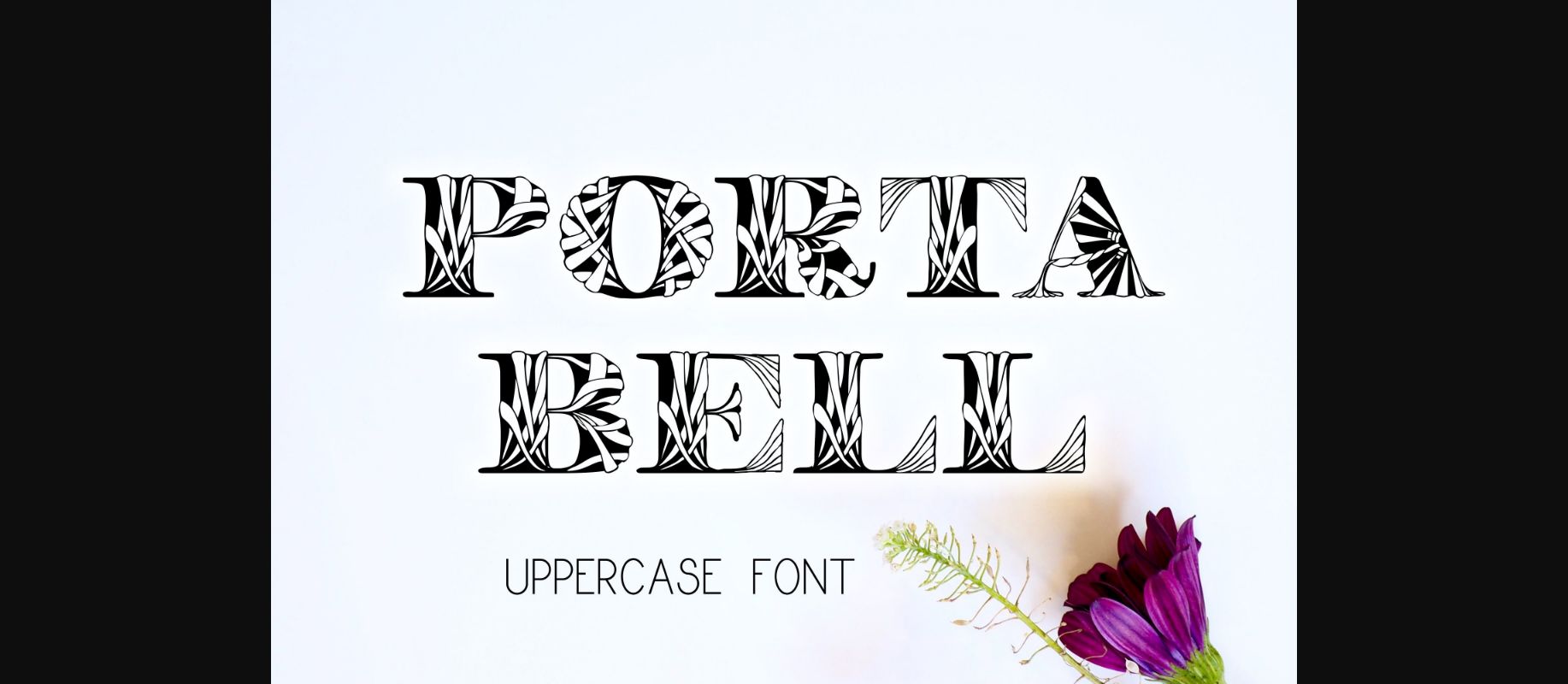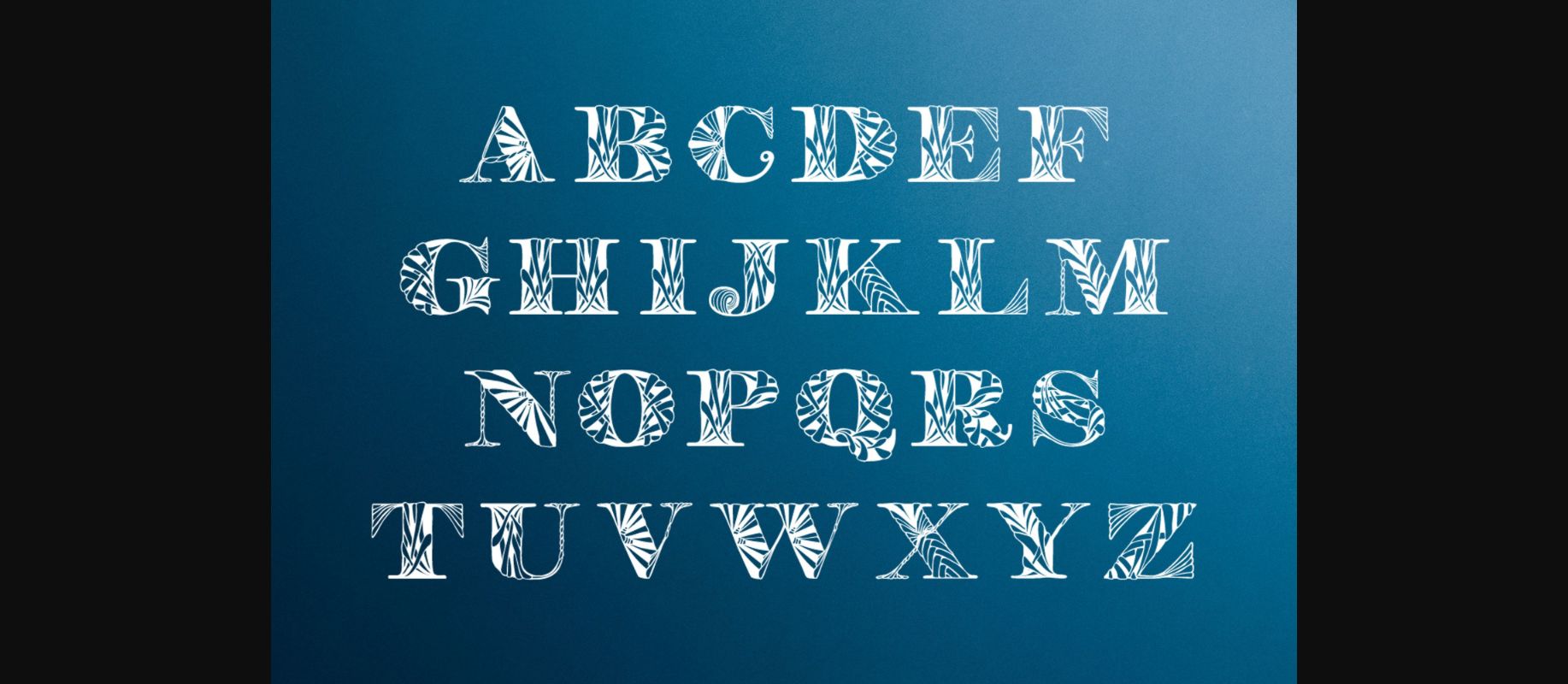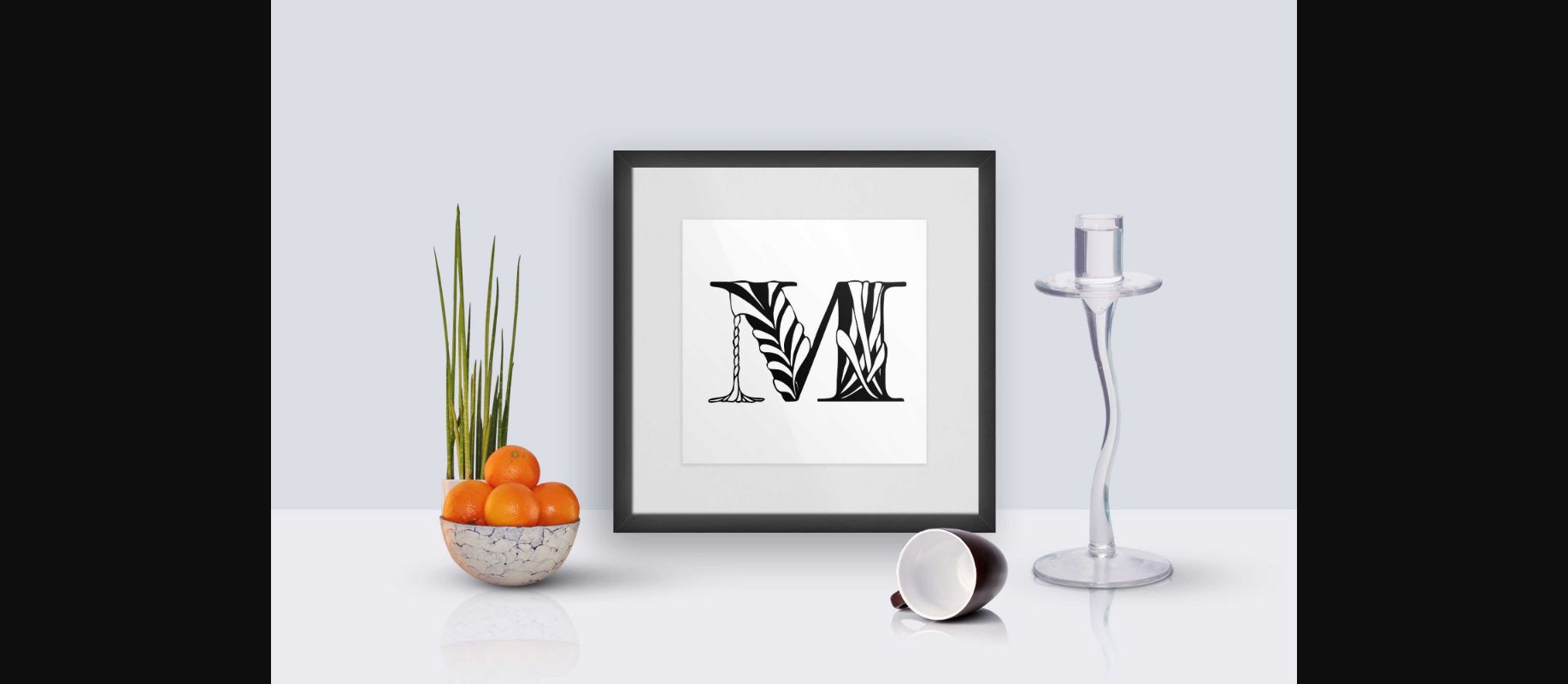
About Portabell Font
Portabell is an all uppercase decorative font.
It has a great look, and is perfect for various craft designs.
Whether you’re using it for crafts, digital design, logos, or branding, this font has the potential to become your favorite font, no matter the occasion.
It has a great look, and is perfect for various craft designs.
Whether you’re using it for crafts, digital design, logos, or branding, this font has the potential to become your favorite font, no matter the occasion.